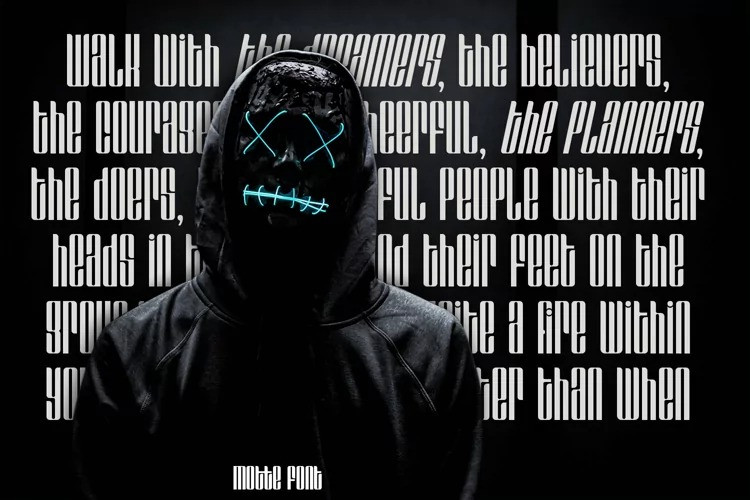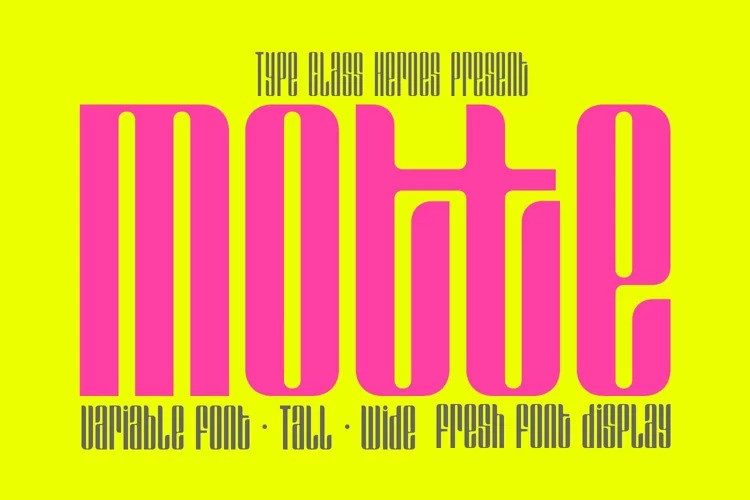
Motte Font
Motte Font by TypeClassHeroes 16,797 downloads
Motte Font
Introducing Motte Sans Serif Font is a tall and wide sans comes with classic casual family to get more stunning. Use this font family for any branding, product packaging, invitation, quotes, t-shirt, label, poster, logo etc.